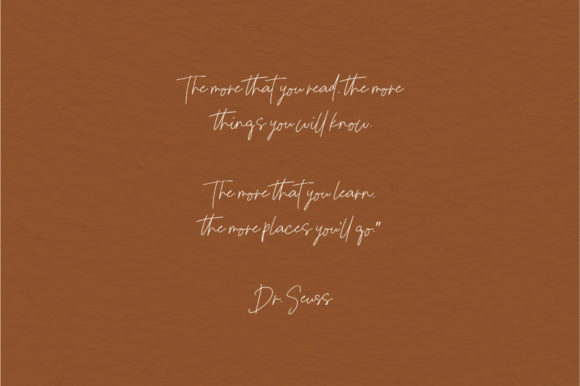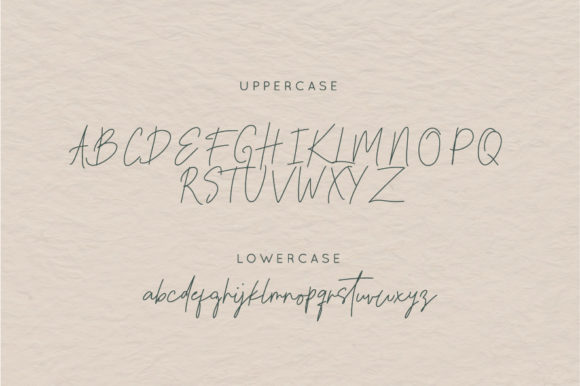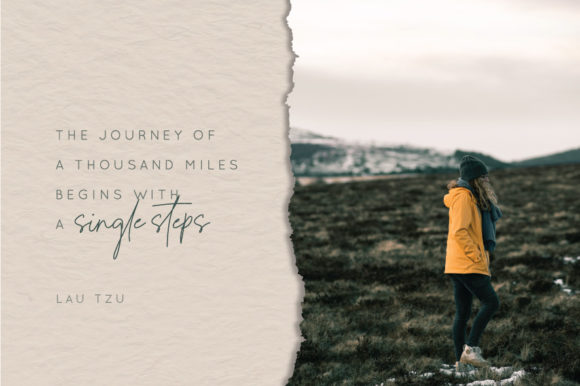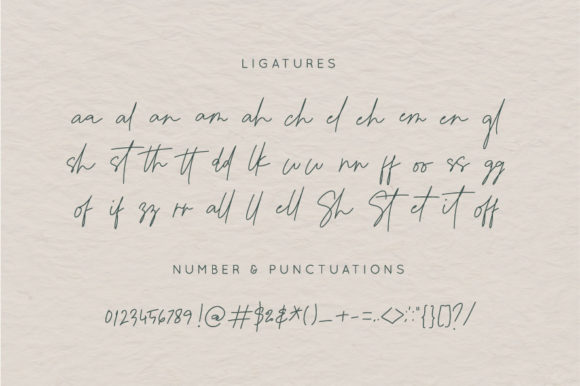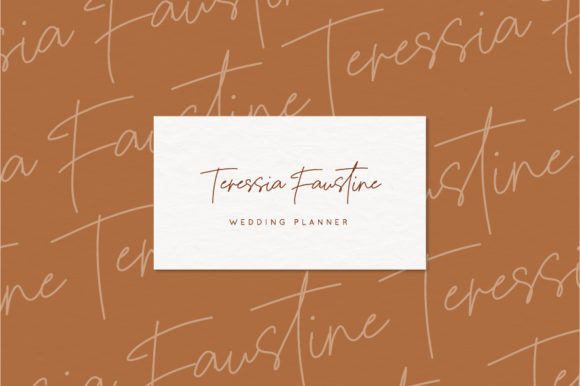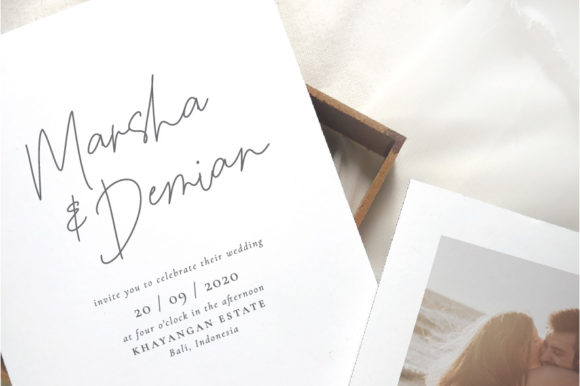
Where Creativity Meets Elegance: Introducing Caramel Story Font
Imagine you’re brainstorming ideas for a new fashion brand, and suddenly, a spark of inspiration hits you – a beautiful, handwritten logo that captures the essence of your brand. For designers, moments like these are a dream come true. But, what if you could turn that spark into a reality with the perfect font?
Enter Caramel Story Font, a signature handwritten font that exudes modern style and sophistication. With its versatility, this font is perfect for logos, fashion branding projects, wedding invitations, and much more. What sets it apart is its 33 ligatures, making it an invaluable tool for designers looking to add a personal touch to their creations. Whether you’re a seasoned pro or a newcomer to the world of design, the Caramel Story Font is sure to become your go-to companion for crafting unique and memorable designs.
Caramel Story Font Key Features
- Font Family: Caramel Story, a modern script font designed for elegant and sophisticated typography.
- Character Count: 750+ glyphs, including Latin, Cyrillic, and Greek alphabets, as well as various punctuation and diacritical marks.
- Unique Characteristics: Features a flowing, handwritten feel with subtle texture and nuanced line variation, making it ideal for creative and artistic projects.
Caramel Story Font Review
Overall, I was excited to dive into the Caramel Story Font, but it didn’t quite hit the mark for me. That being said, there are some redeeming qualities to this font.
- The Caramel Story Font has a unique, handcrafted feel to it. It’s a great choice for designers looking for a distinctive look.
- The font includes a range of weights and styles, making it easy to use in a variety of applications.
- It’s suitable for use in both digital and print projects.
- The font’s unique feel can also make it difficult to read, especially in larger blocks of text.
- The weights and styles, while varied, can sometimes feel inconsistent.
- It may not be the best choice for projects where readability is a top priority.
While the Caramel Story Font has its strengths, it ultimately feels like a niche choice. It’s best suited for projects where a distinctive, handmade look is a key requirement. However, for everyday use, I’d recommend exploring other options that prioritize readability and consistency.
Tips for Getting the Most Out of Caramel Story Font
To get the most out of Caramel Story Font, try the following tips:
- Use the font’s ligature and swash features to add a personal touch to your design.
- Pair the font with a clean and simple sans-serif font to create a beautiful contrast.
- Experiment with different font sizes and styles to create a visually appealing design.
The Caramel Story Font is perfect for
Alternatives to Caramel Story Font
Bebas Neue is a modern sans-serif font that works well for titles, headings, and body text. It is highly legible and versatile, making it suitable for a wide range of applications. Bebas Neue has a similar feel to Caramel Story Font but with a more minimalist and clean aesthetic.
Use Bebas Neue for projects that require a clean and modern look, such as fashion, technology, or minimalist design.
Playfair Display is an elegant and luxurious serif font that is perfect for creating a sophisticated and high-end look. It is ideal for use in titles, headings, and body text where a touch of sophistication is required. Playfair Display has a more ornate and refined feel compared to Caramel Story Font, making it suitable for projects that require a level of elegance and sophistication.
Q: Does the Caramel Story Font include any special features or technical details?
Yes, the Caramel Story Font includes advanced OpenType features, such as ligatures, fractions, and ordinals. It also includes a wide range of language support, including Latin, Greek, and Cyrillic scripts. The font is also optimized for use at small font sizes and is designed to be highly readable on a variety of devices.